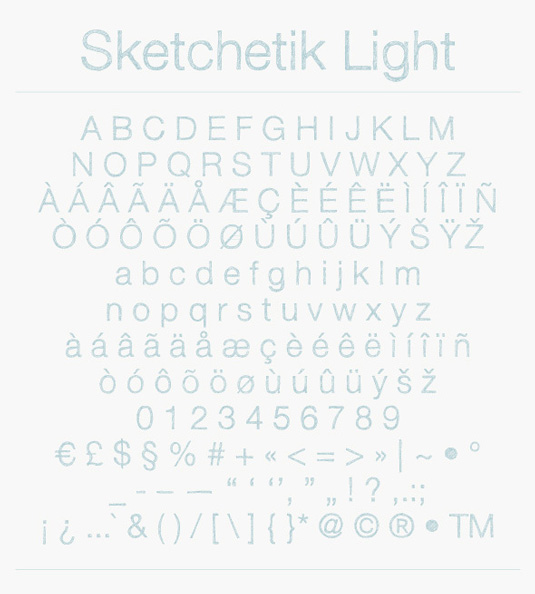
Font of the day: Sketchetik Light
Sketchetik Light by Ossi Gustafsson
This hand-drawn display typeface Sketchetik was created by Ossi Gustafsson of Finland-based design studio Hiekka Graphics. Available in four styles; regular, bold, black and light.